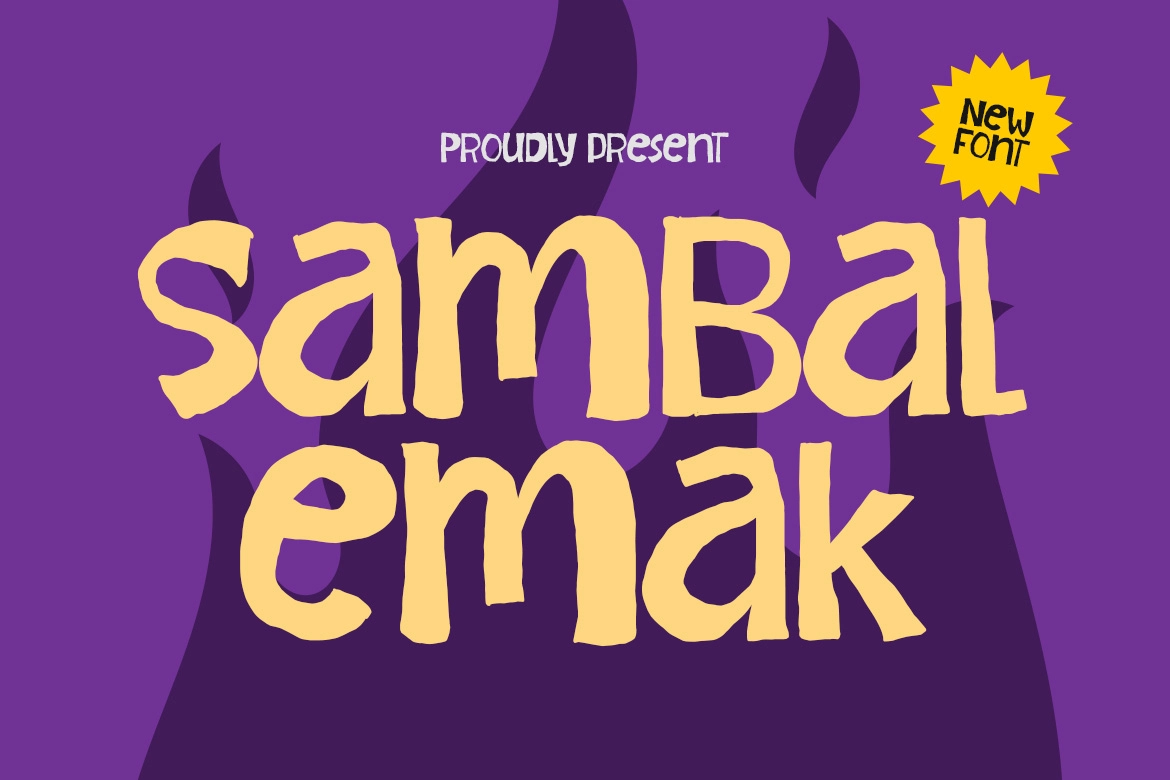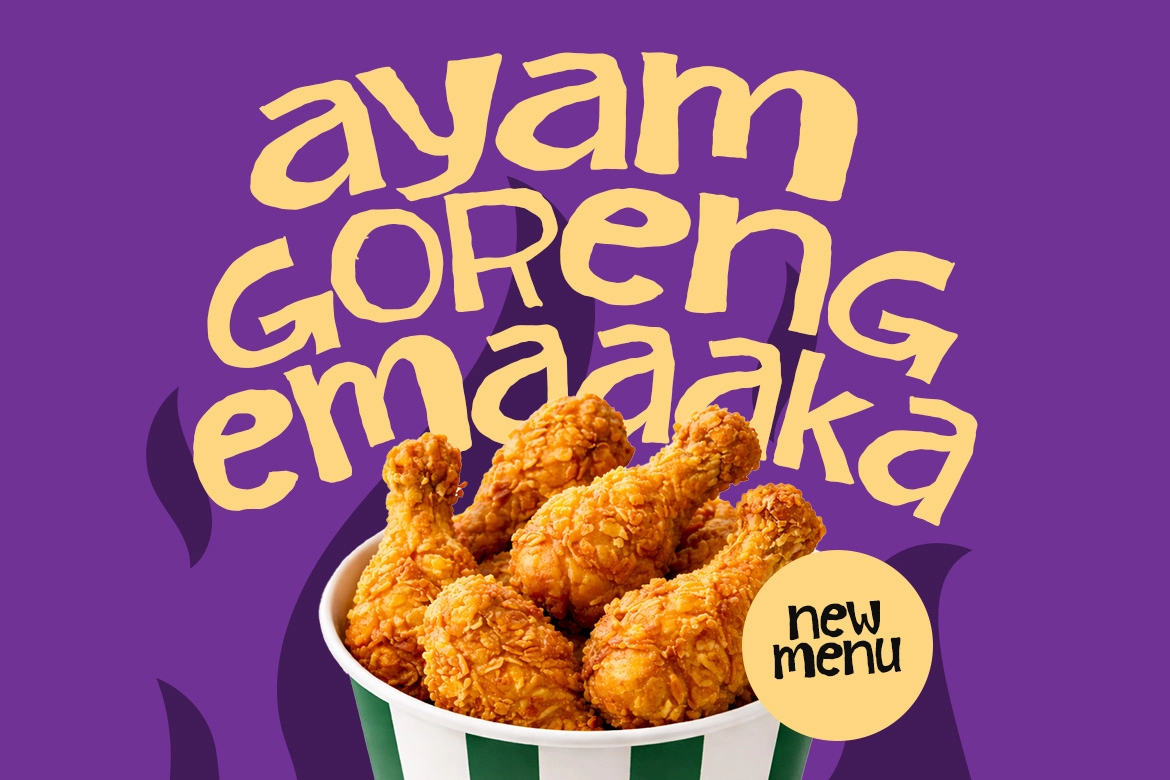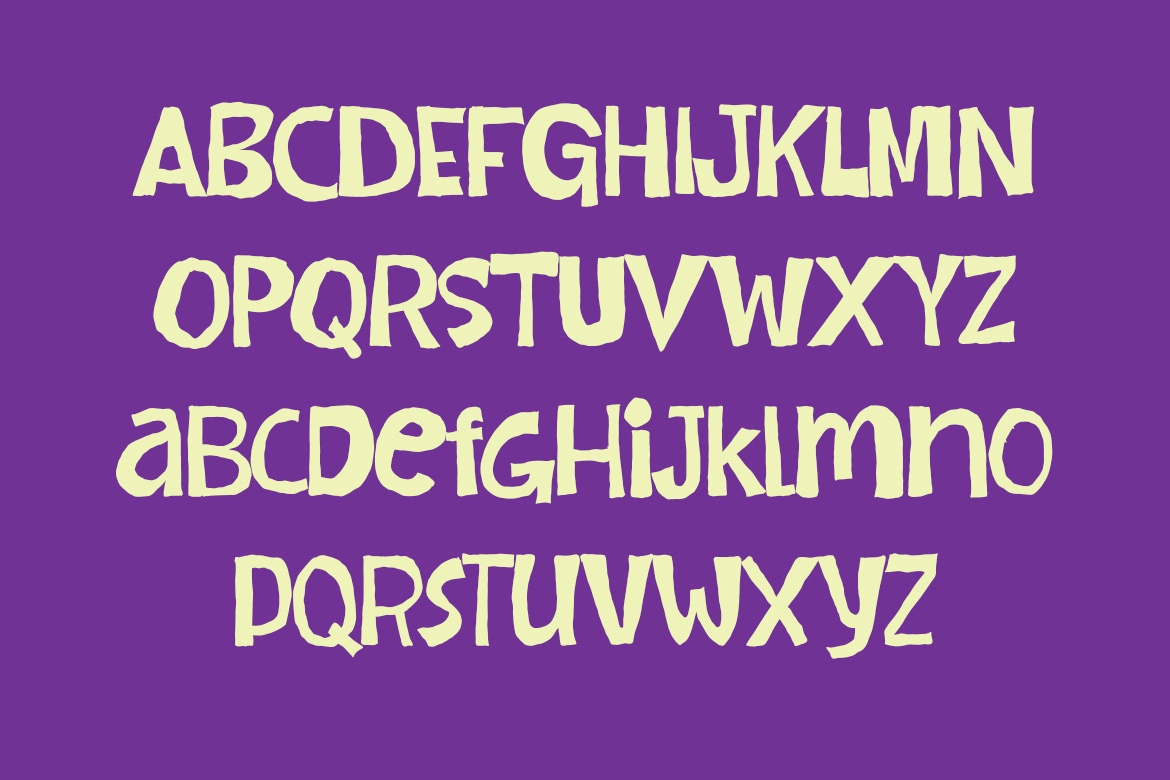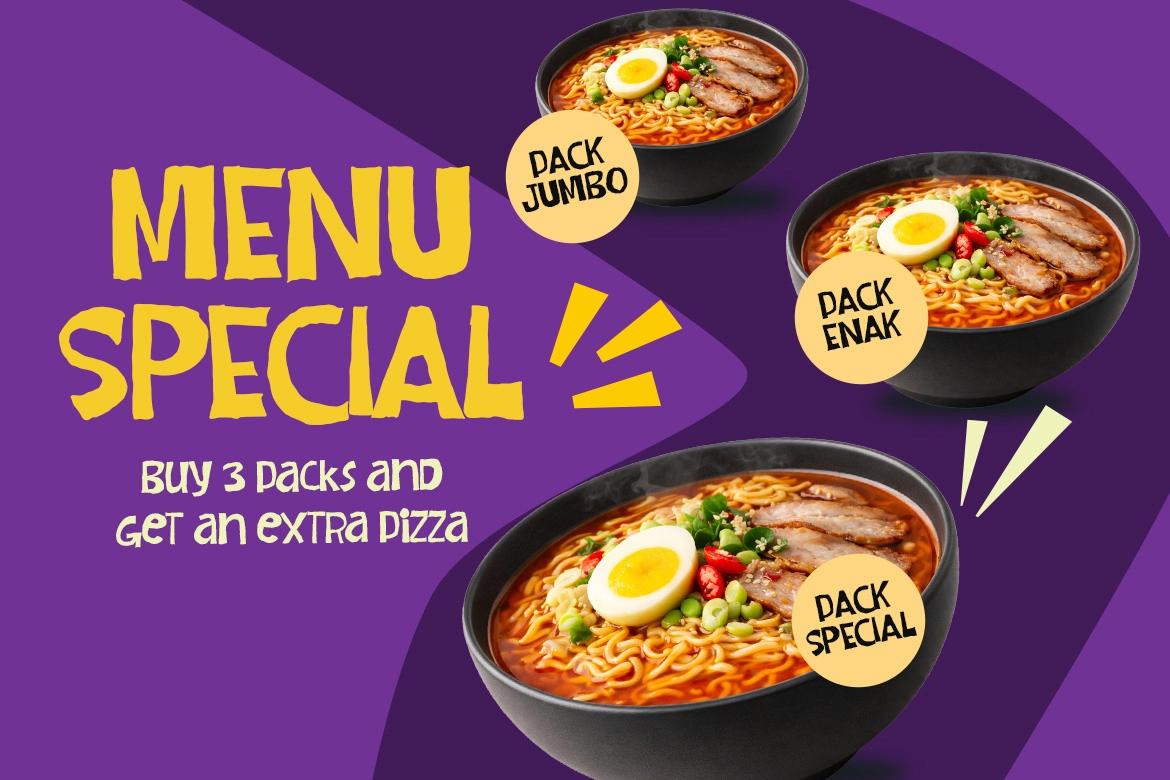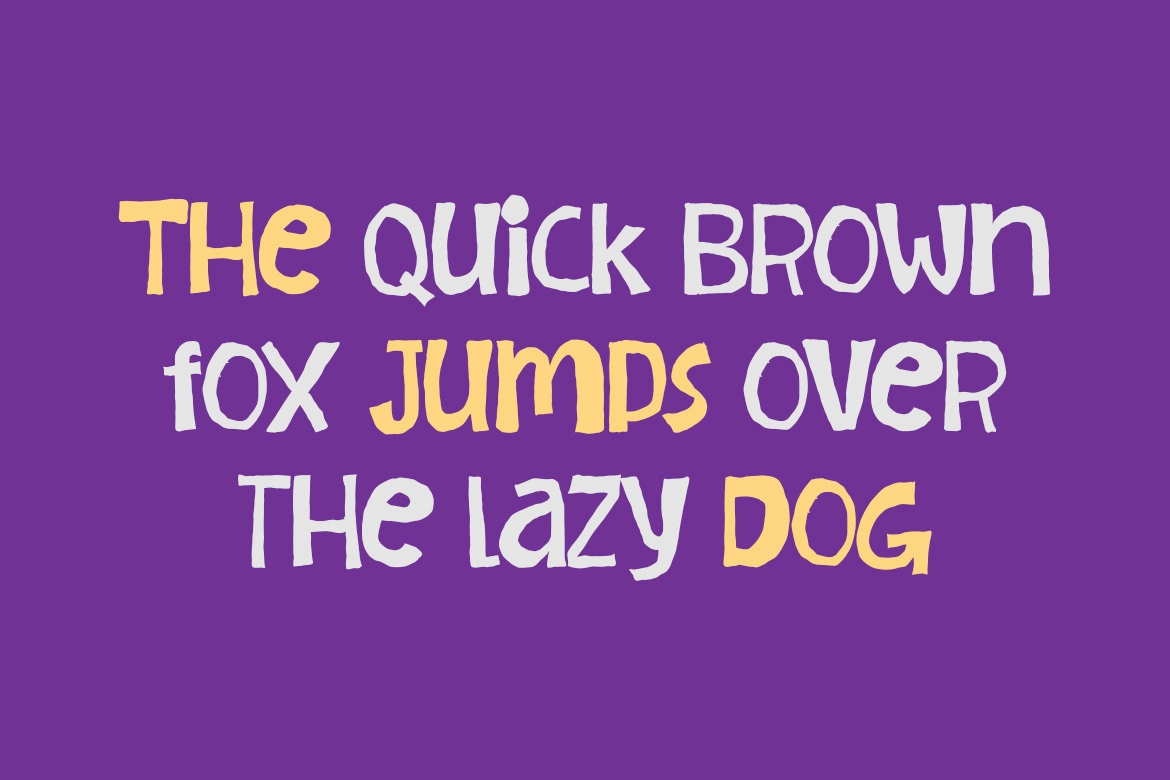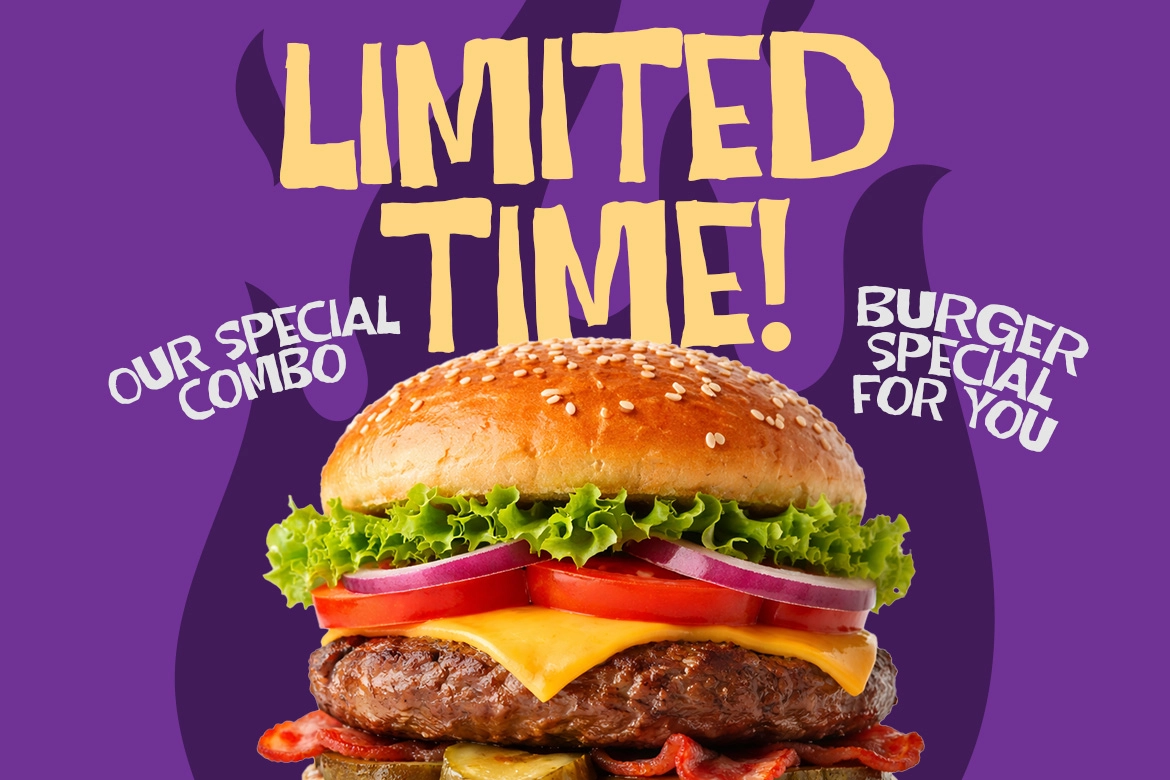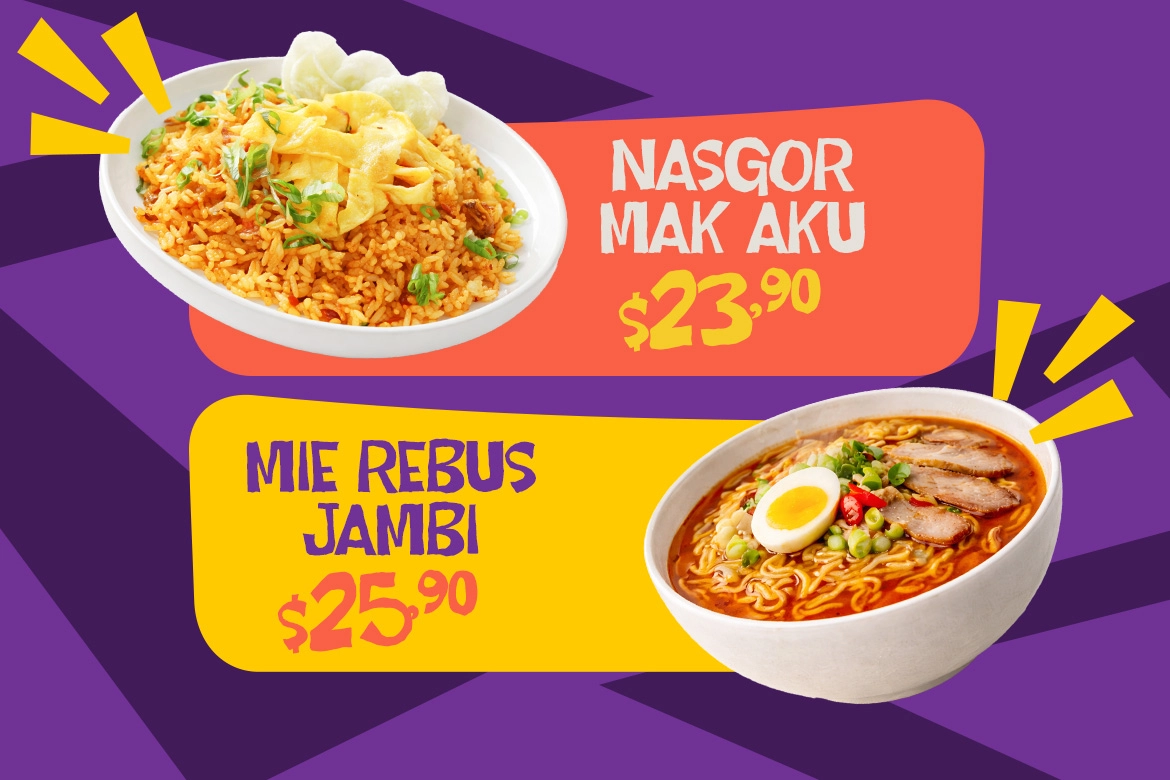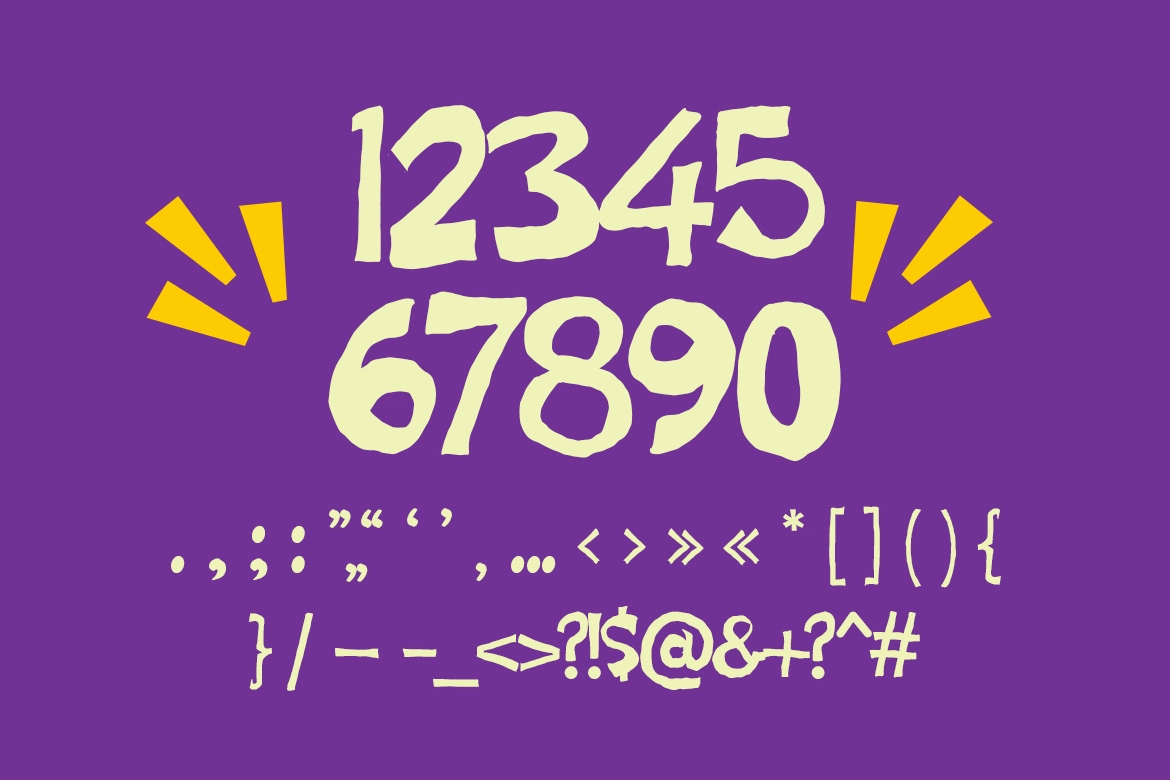
Sambal Emak – Cute Food Branding Font
Sambal Emak
Sambal Emak is a bold handwritten display font with a playful, handcrafted feel. Its chunky shapes, uneven edges, and lively rhythm make it a strong fit for food branding, restaurant logos, menu design, packaging, and social media graphics. The overall look feels warm, casual, and expressive, helping headlines stand out with a fun handmade touch.
Perfect for eye-catching titles and branding, this font works especially well for cafés, burger shops, bakeries, snack packaging, street food concepts, and promo visuals. Use it when you need a food display font that feels friendly, bold, and memorable.
Perfect For:
- Food branding
- Restaurant menus
- Packaging
- Social media